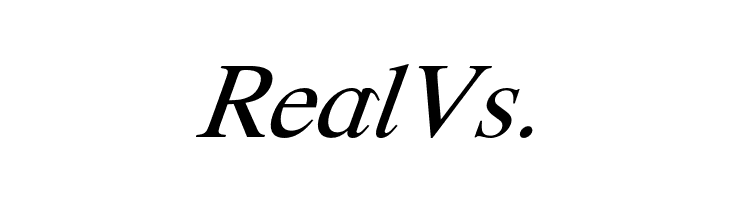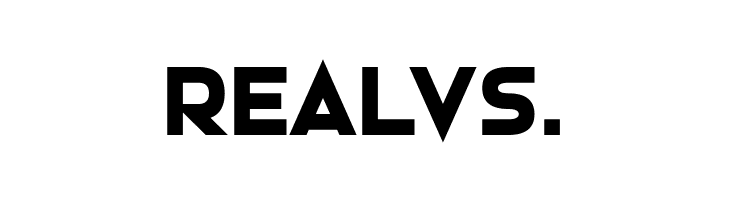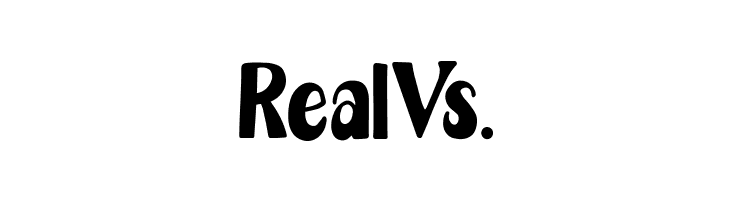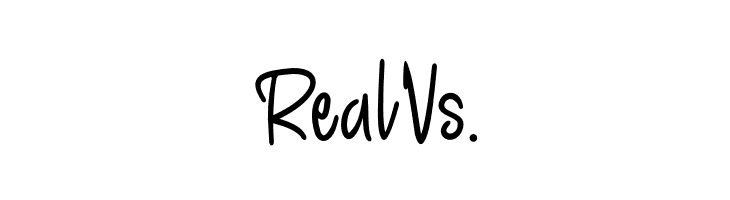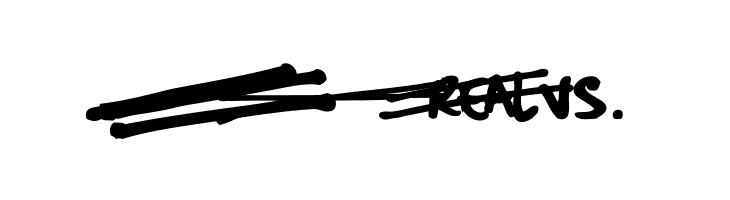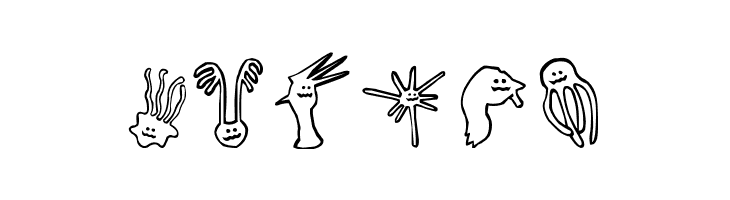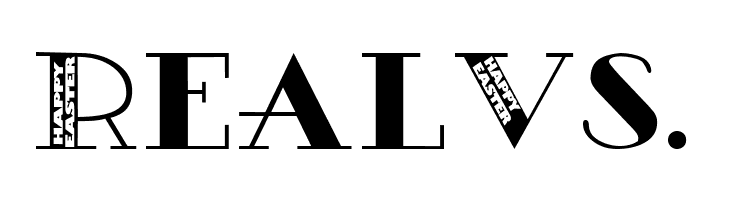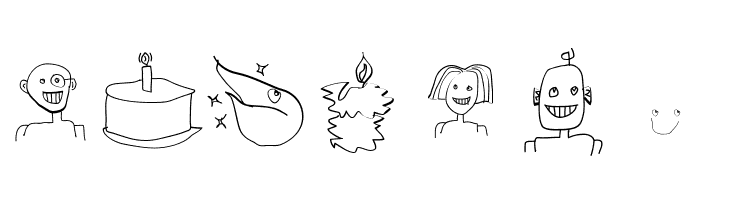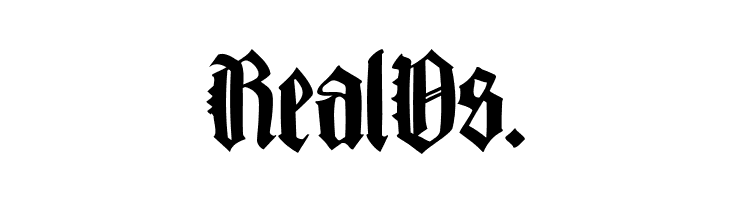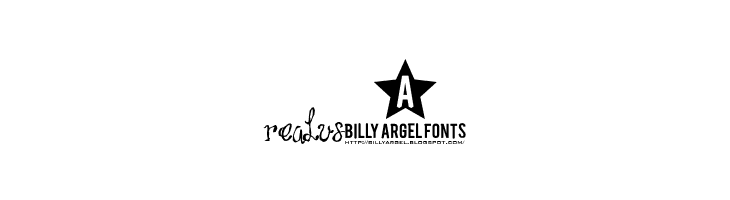
A playful, hand-drawn font with a quirky and slightly eerie style.
A festive, decorative font with Easter-themed elements and bold styling.
A dynamic, handwritten-style font with expressive strokes and a casual, artistic flair.
A playful, bold font with rounded characters and a whimsical style.
A bold, geometric font with strong, angular lines and a modern aesthetic.
An elegant serif font with a classic italic style and smooth, flowing lines.
An elegant serif font with a classic italic style and high contrast.
An elegant serif font with italicized characters and medium contrast.
A classic serif typeface with an elegant italic slant and moderate contrast.
A playful, hand-drawn font with dynamic strokes and whimsical bird illustrations.
A whimsical, hand-drawn font with playful bird-themed characters.
A whimsical, hand-drawn font featuring birthday-themed illustrations.
An ornate and whimsical font with decorative swirls and playful skull illustrations.
A bold, dramatic Blackletter-style font with intricate details and sharp, angular lines.
A creative and eclectic display font with unique textures and motifs in each character.
A playful, dotted outline font with a hand-drawn, whimsical style.
A playful, handwritten font with fluid and dynamic strokes.
A medieval-inspired script font with ornate, flowing lines and historical charm.
A whimsical and illustrative font with lively scenes replacing traditional letters.
A modern serif font with clean lines and balanced proportions.
A bold, classic typewriter-style font with modern, clean lines.
A bold and italic serif font with a dynamic and elegant appearance.
An elegant italic font with smooth curves and a modern twist.
A bold, playful font with dynamic curves and a lively style.
A whimsical collection of festive decorative symbols and illustrations.
A bold, dynamic script font with fluid, energetic strokes.
A bold, flowing script font with interconnected characters and a sophisticated style.
An intricate, decorative monogram font with elaborate swirls and flourishes.
An intricate, decorative font with elaborate swirls and flourishes.
A bold, geometric font with a modern and angular design.